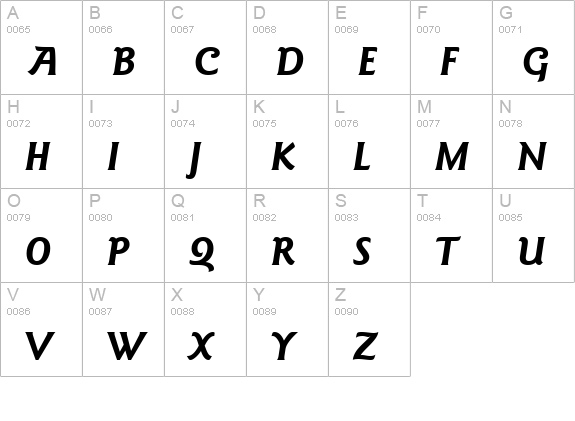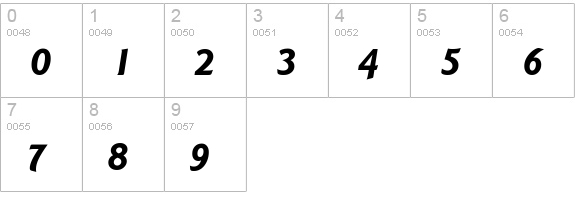
Goudy Sans Bold Italic BT Font Details
Goudy Sans Bold Italic BT is a strong, high-contrast, italic variant in the Goudy typeface family \xE2\x80\x94 well suited to headlines, attention-grabbing titles, and strong calls-to-action.
Goudy Sans Bold Italic BT is a versatile and modern font that exudes sophistication and elegance. Its bold and italic style adds a touch of flair to any design project, making it stand out from the rest. With its clean lines and balanced proportions, Goudy Sans Bold Italic BT is perfect for a wide range of applications, from branding to editorial design. The best part is that this stunning font is available for free download at FontsMarket.com. Now you can add a touch of class to your projects without breaking the bank. Don't miss out on this opportunity to elevate your designs with the timeless beauty of Goudy Sans Bold Italic BT. Download it today and see the difference it can make!